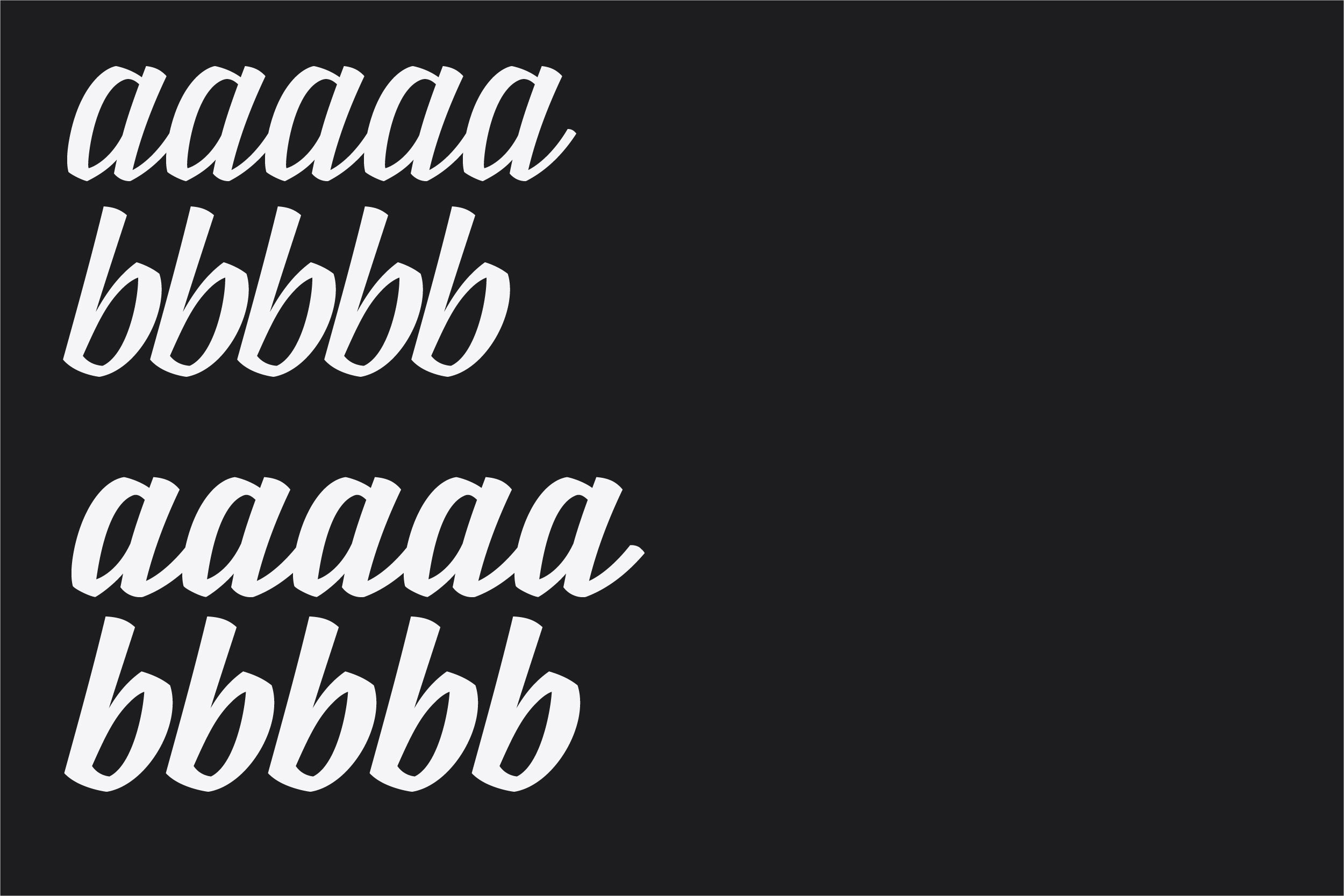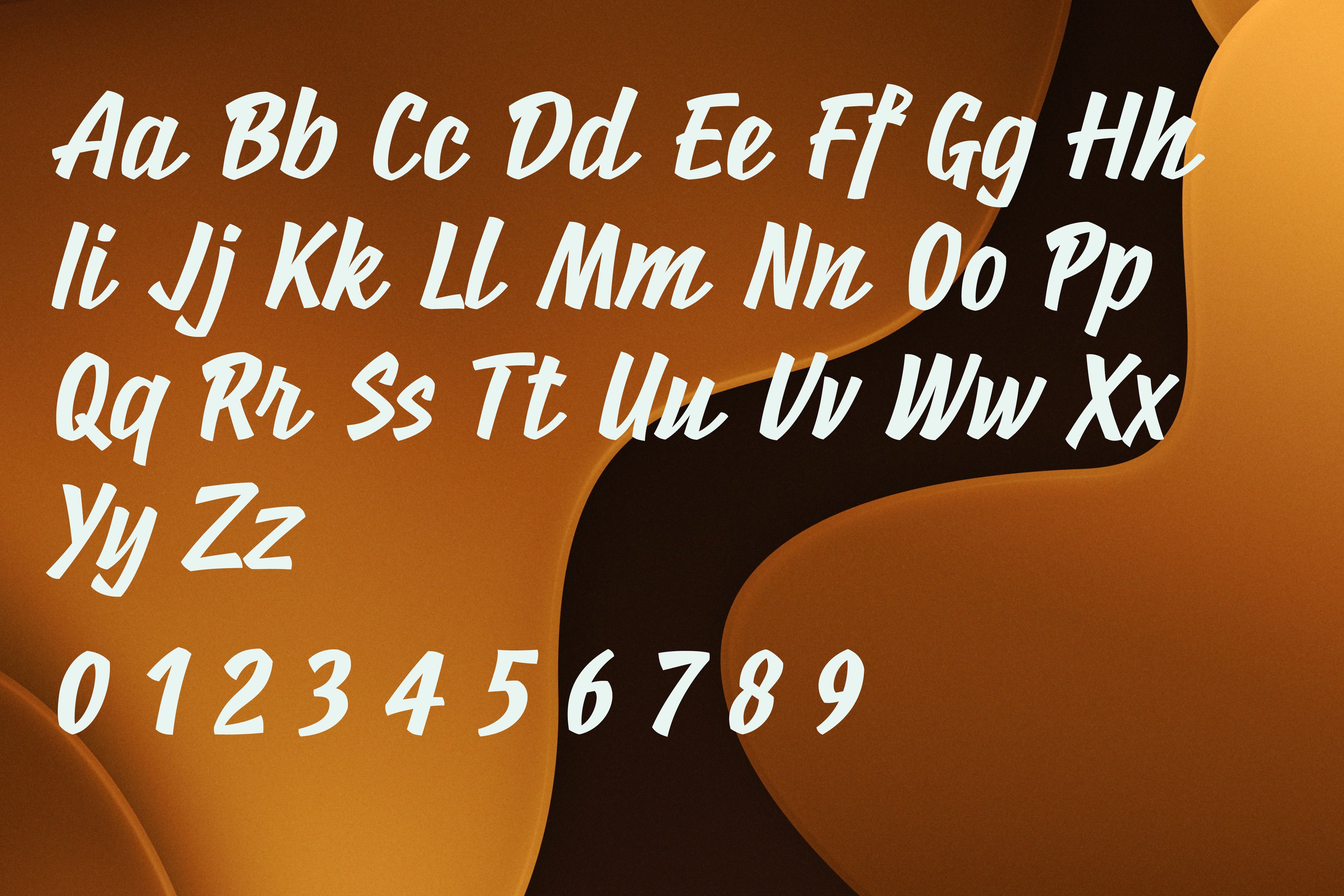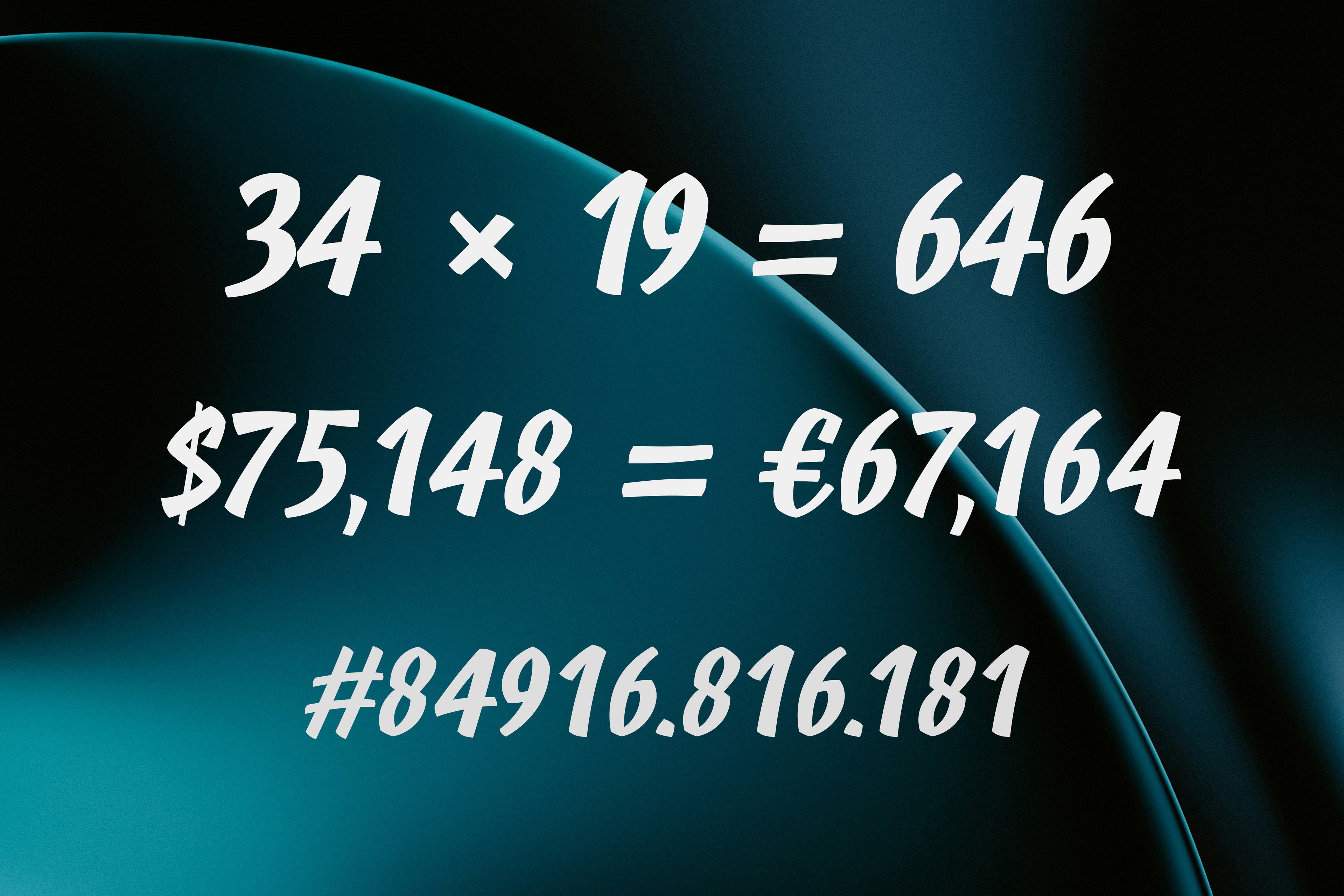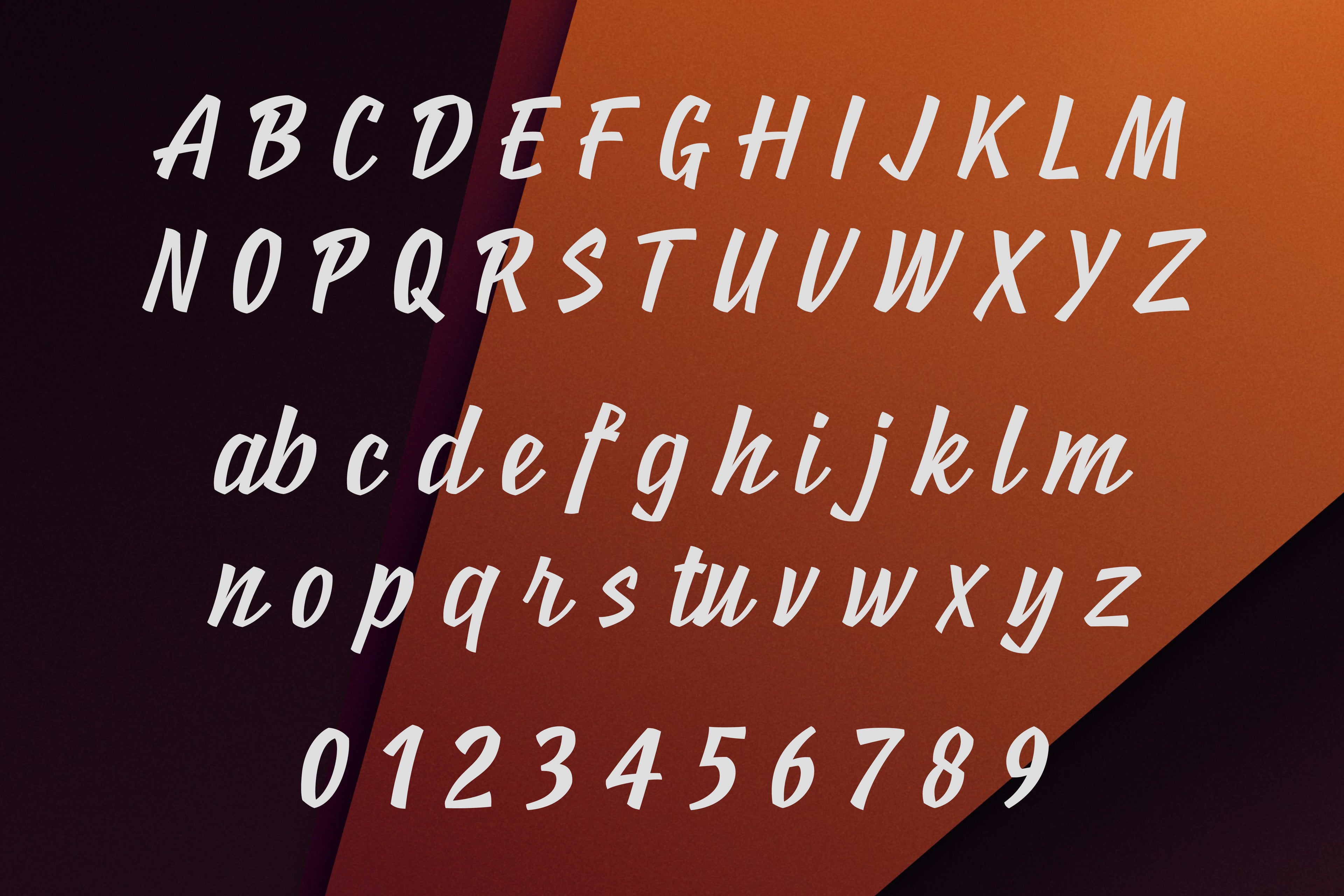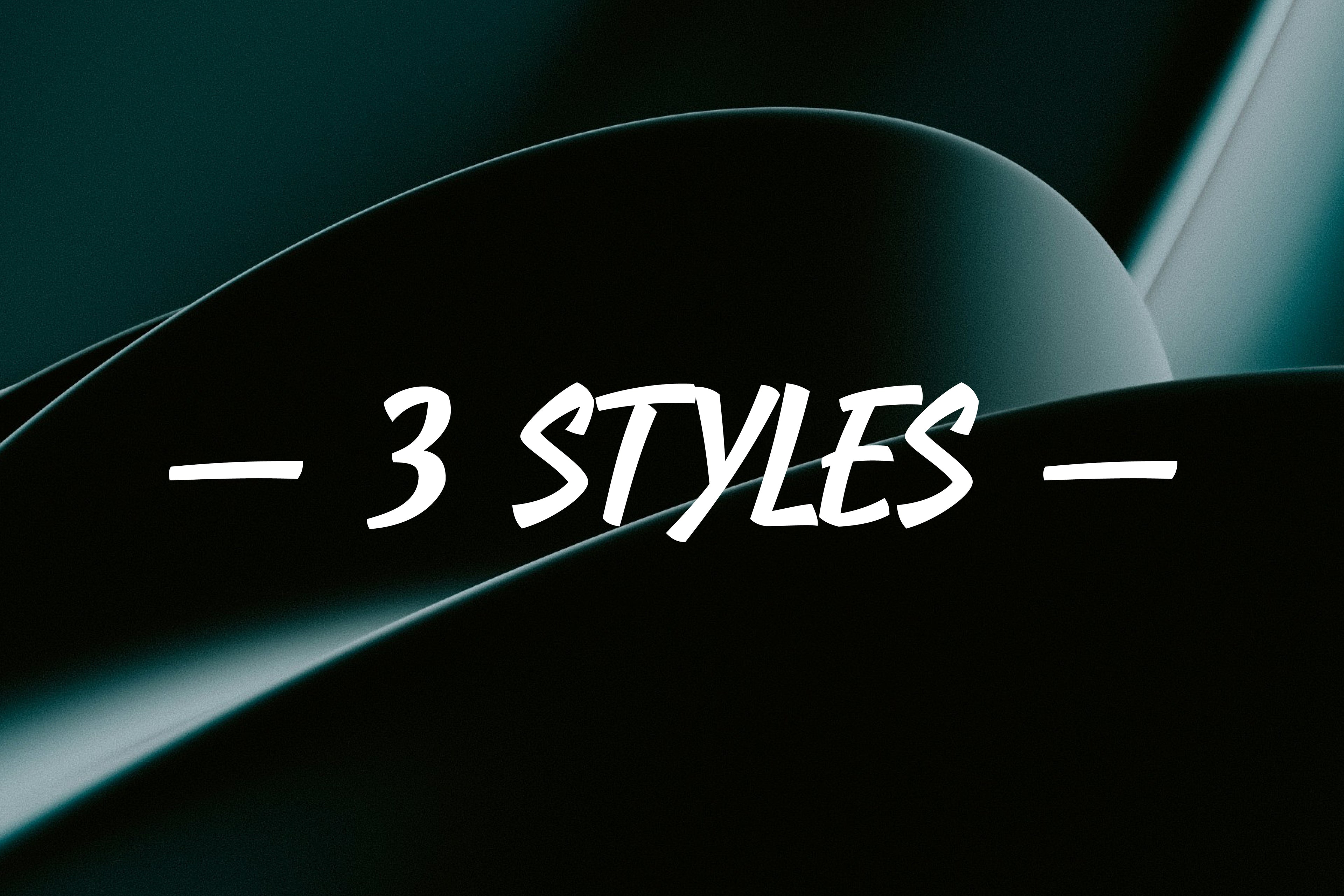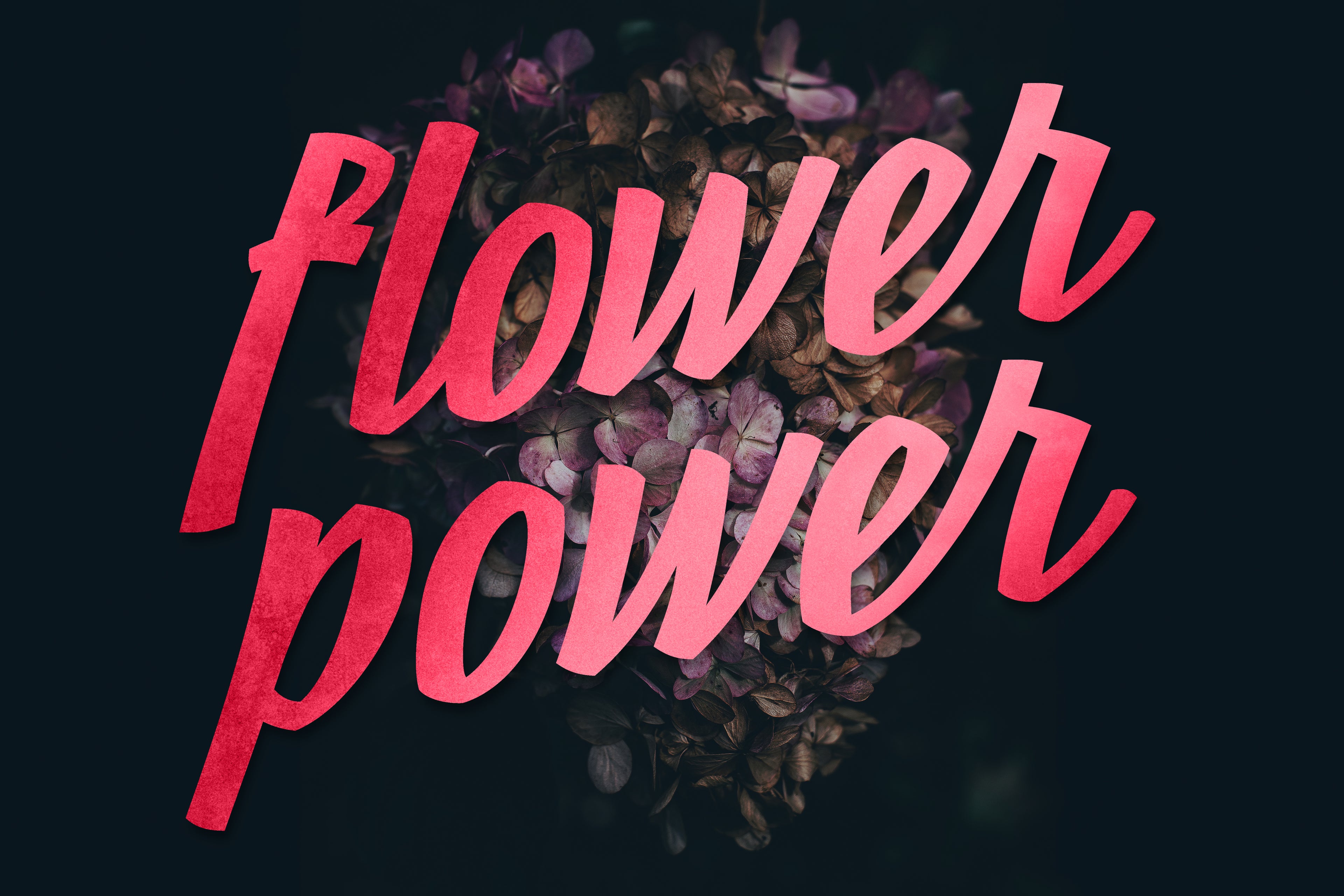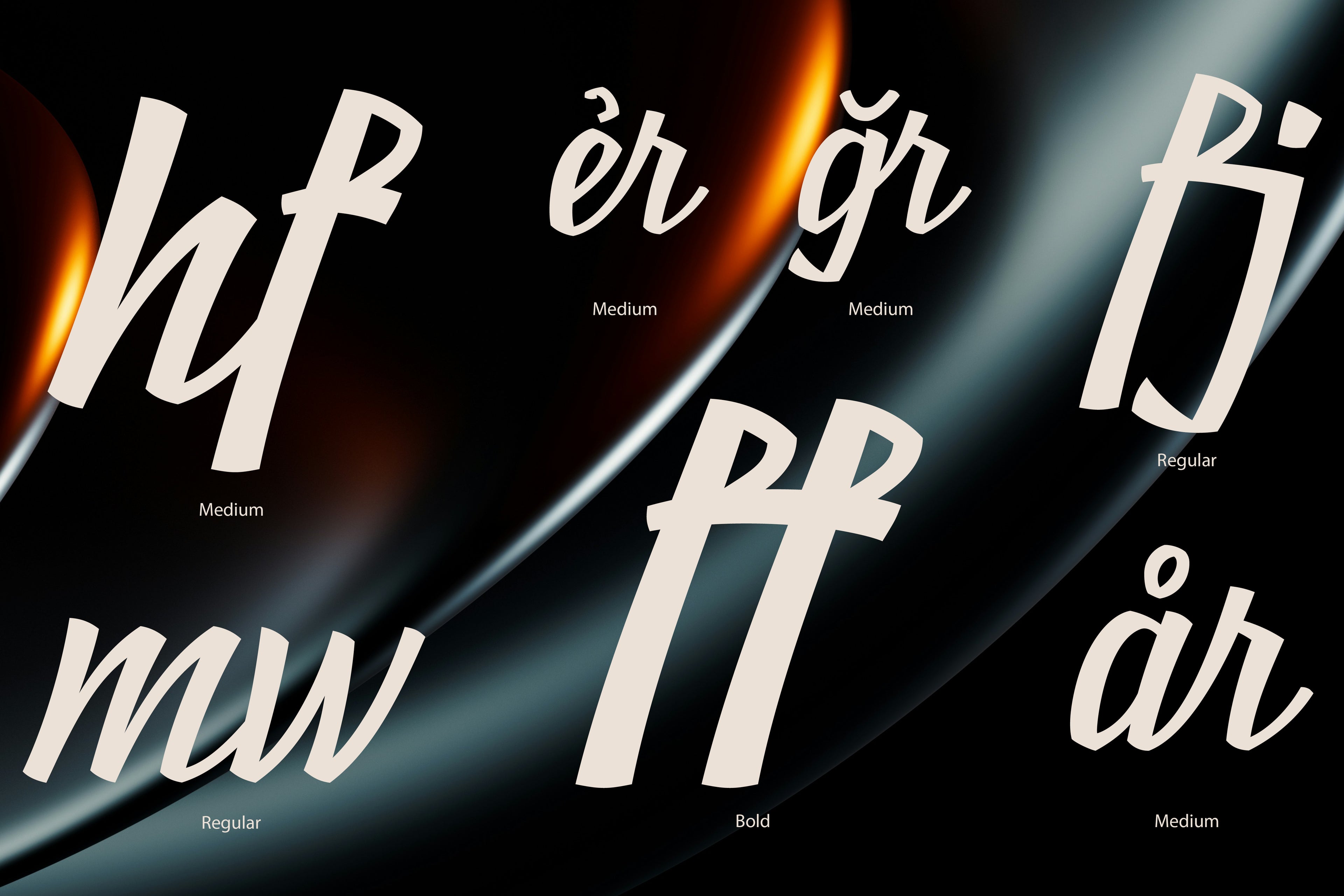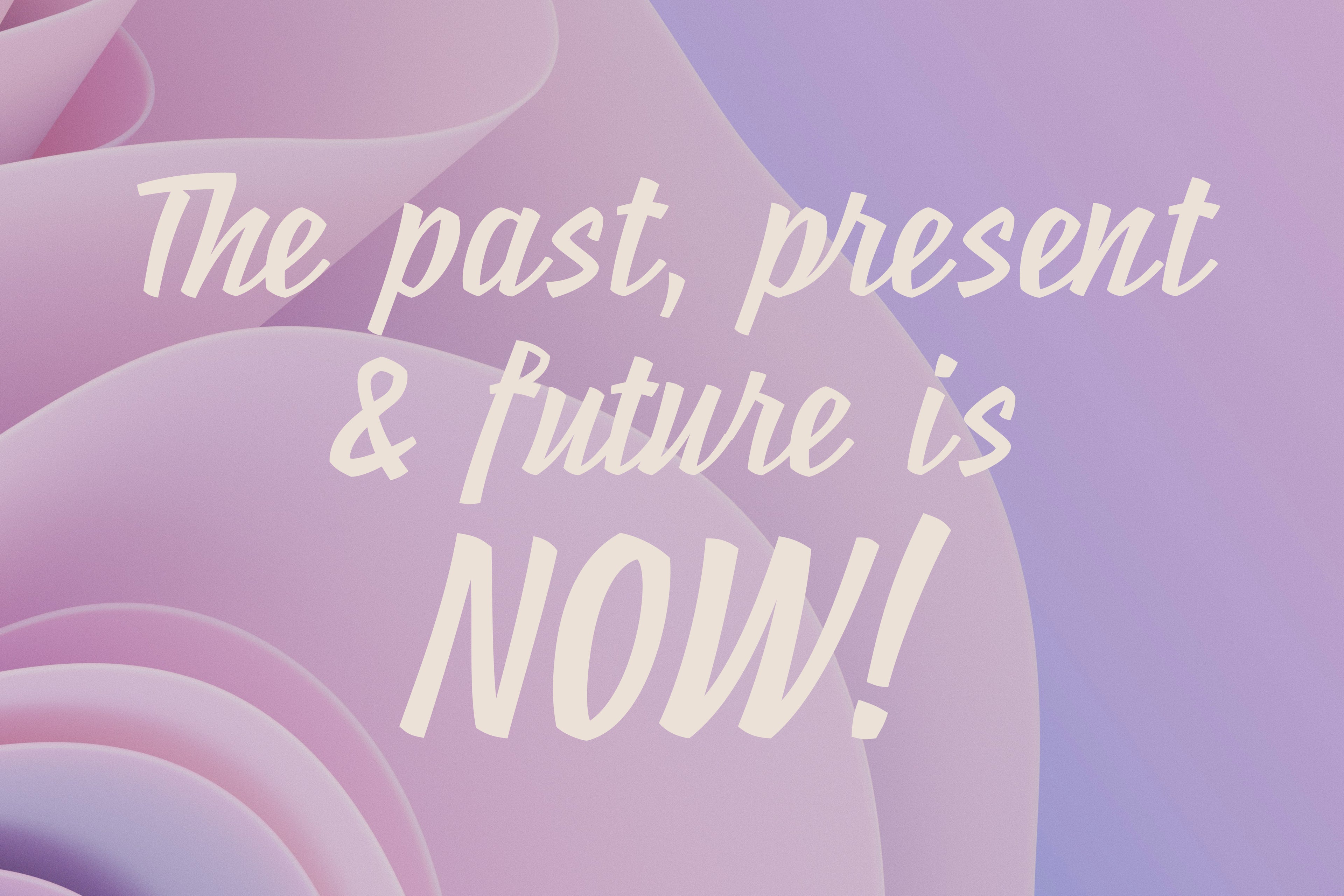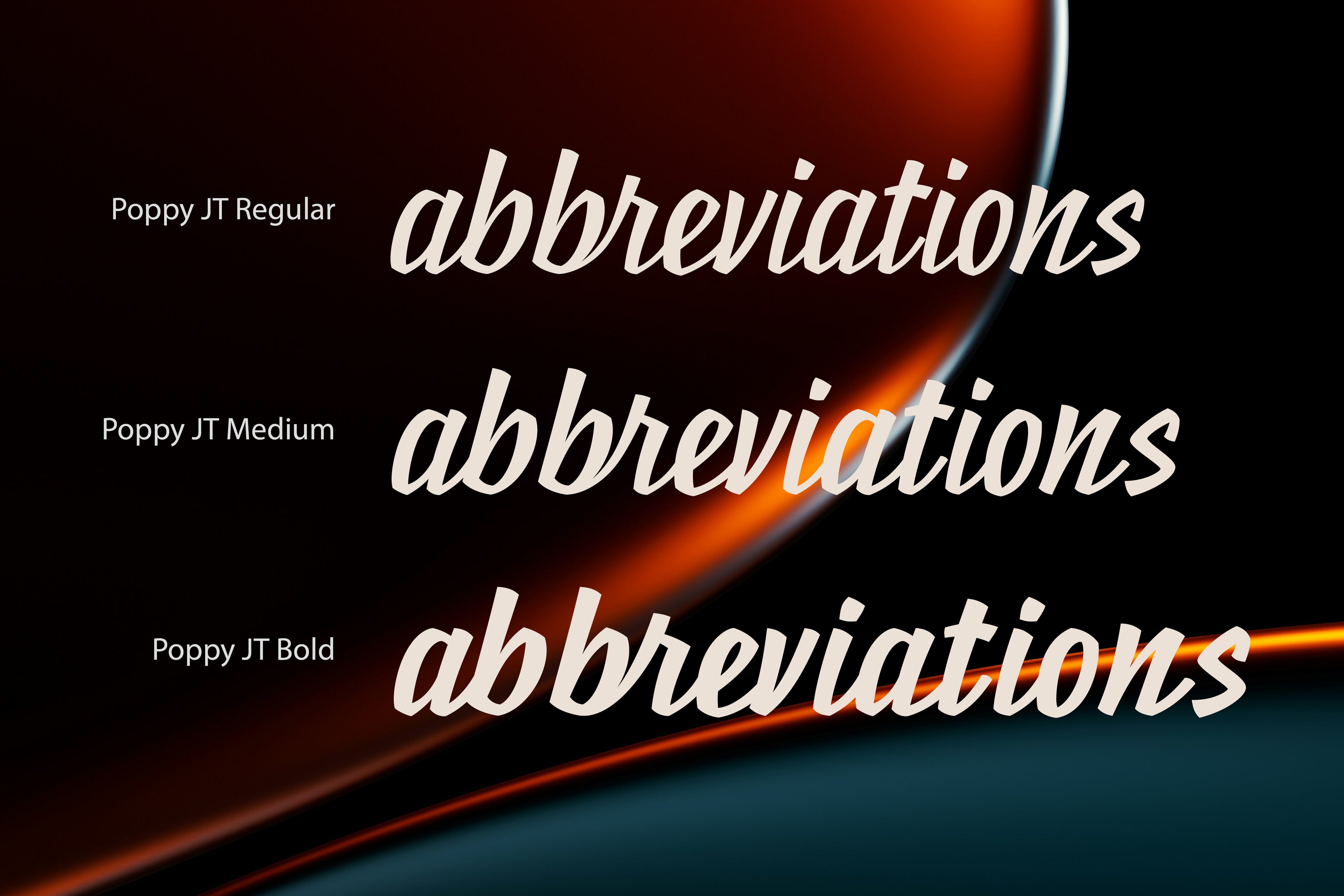
Poppy JT is a brush script typeface that contains three exciting weights which simulate the shapes created by a brush pen. Boasting over 800 glyphs, with its multiple ligature sets and alternatives, this is a wonderful typeface to use in packaging, magazines and on promotional messages!